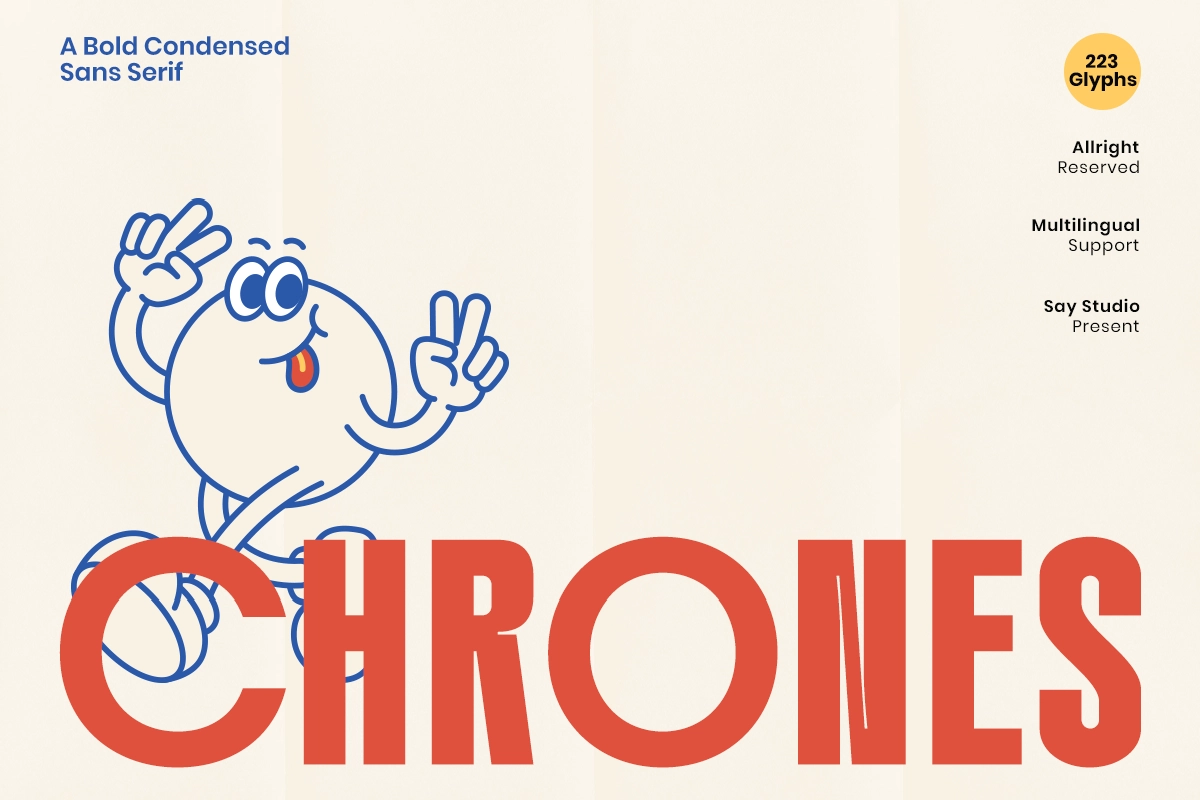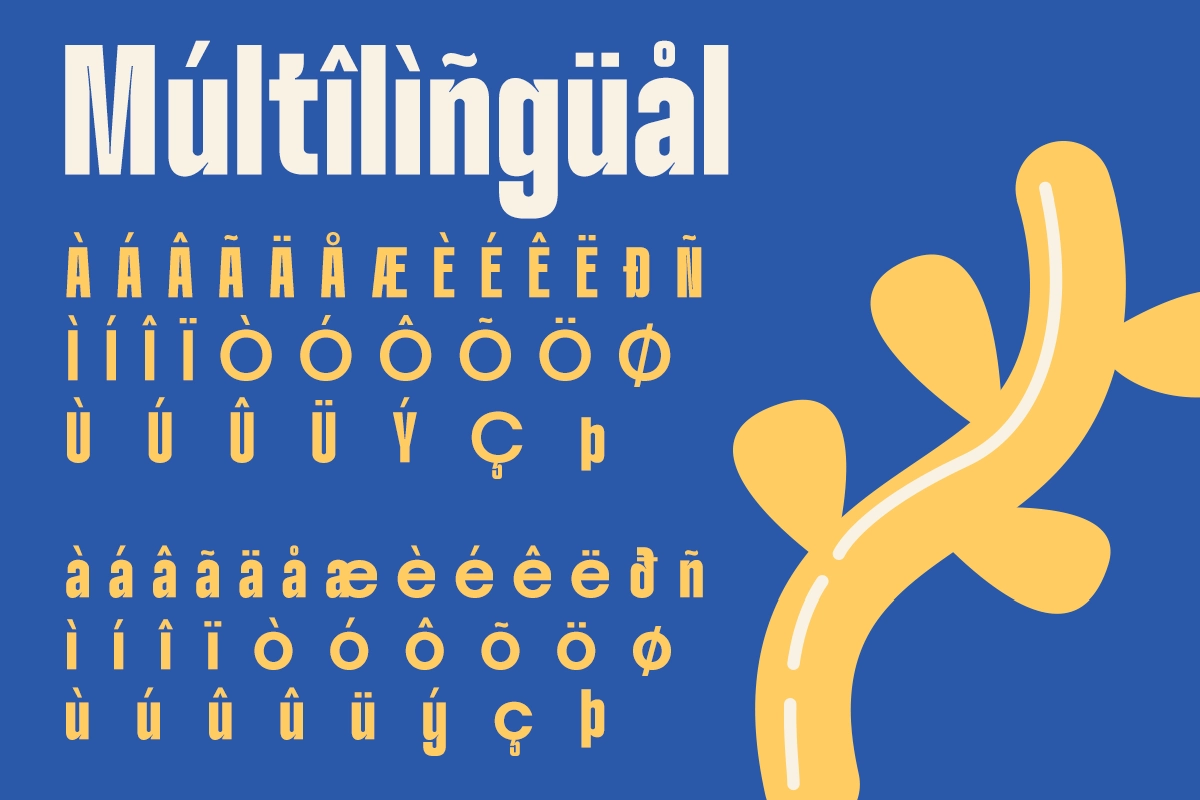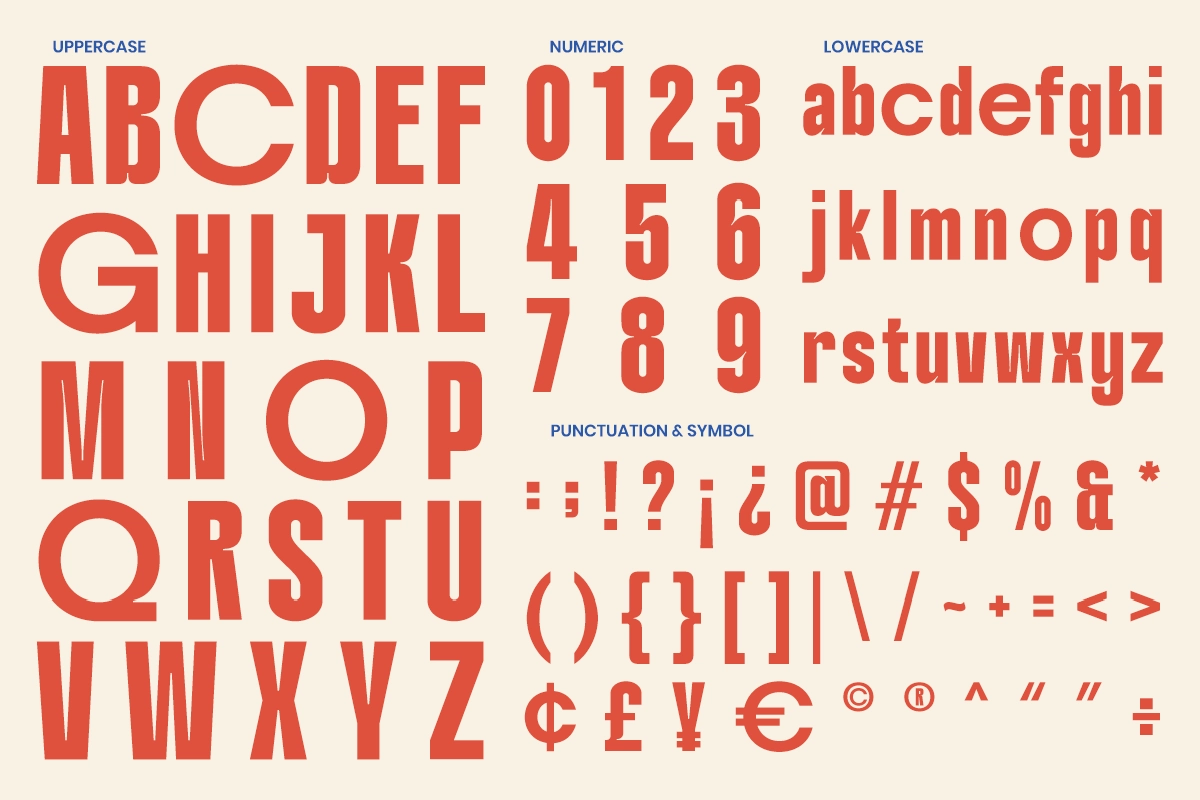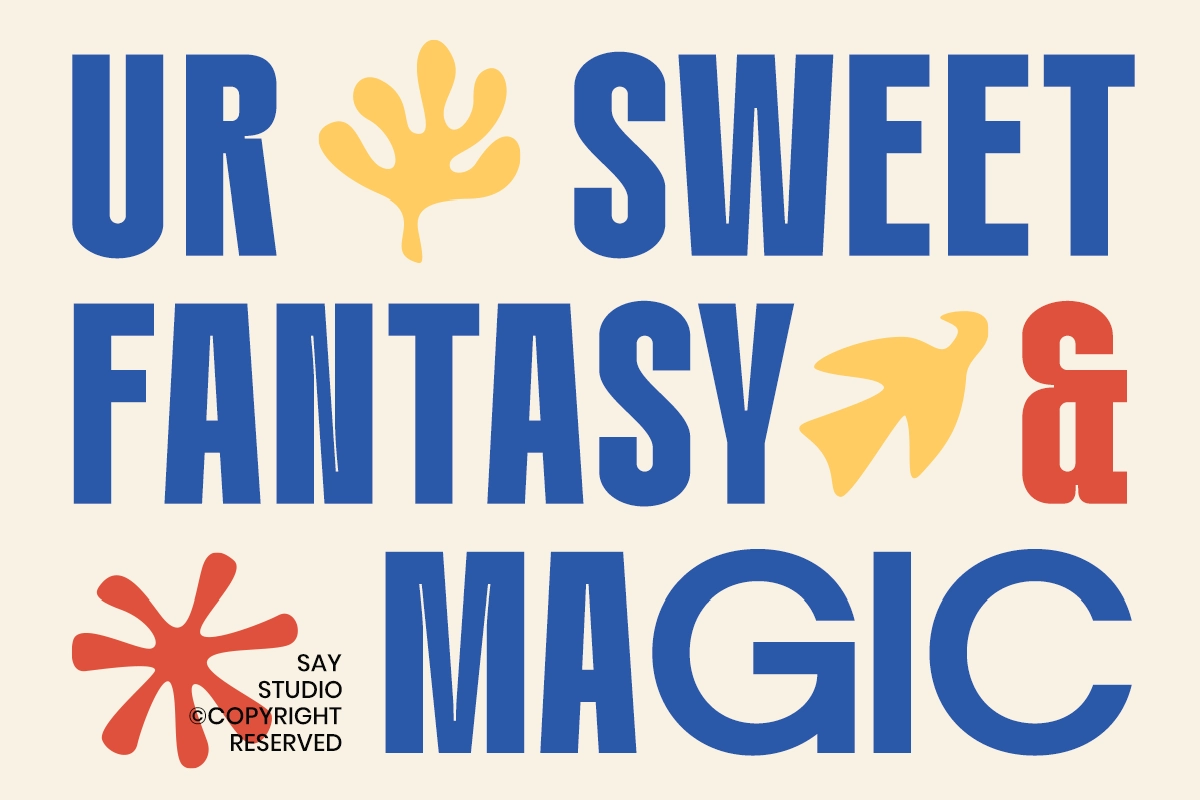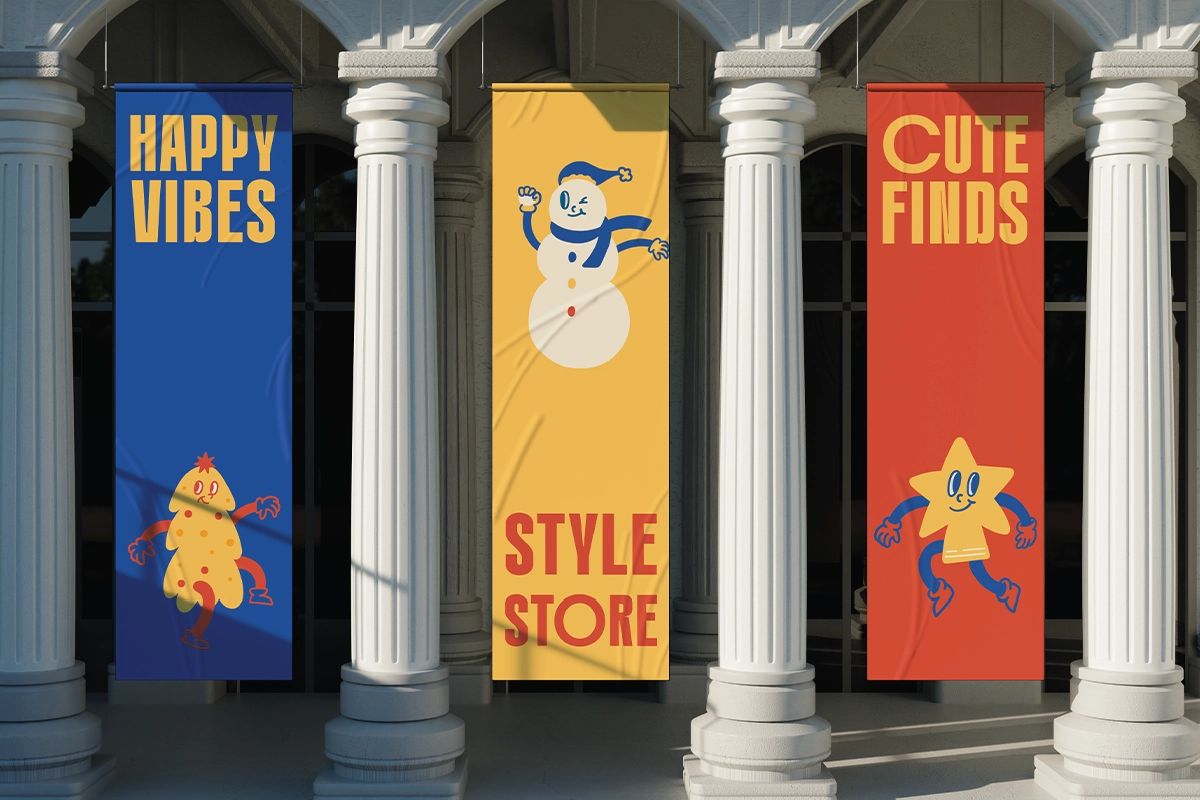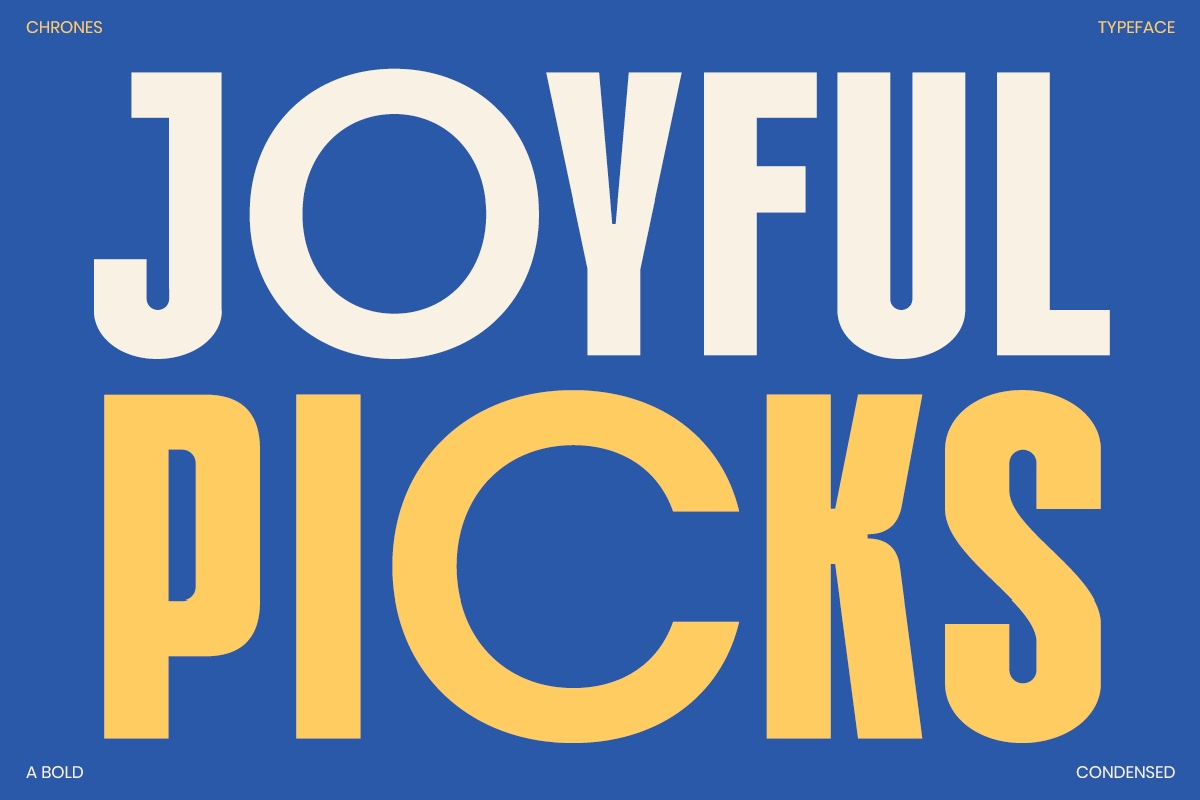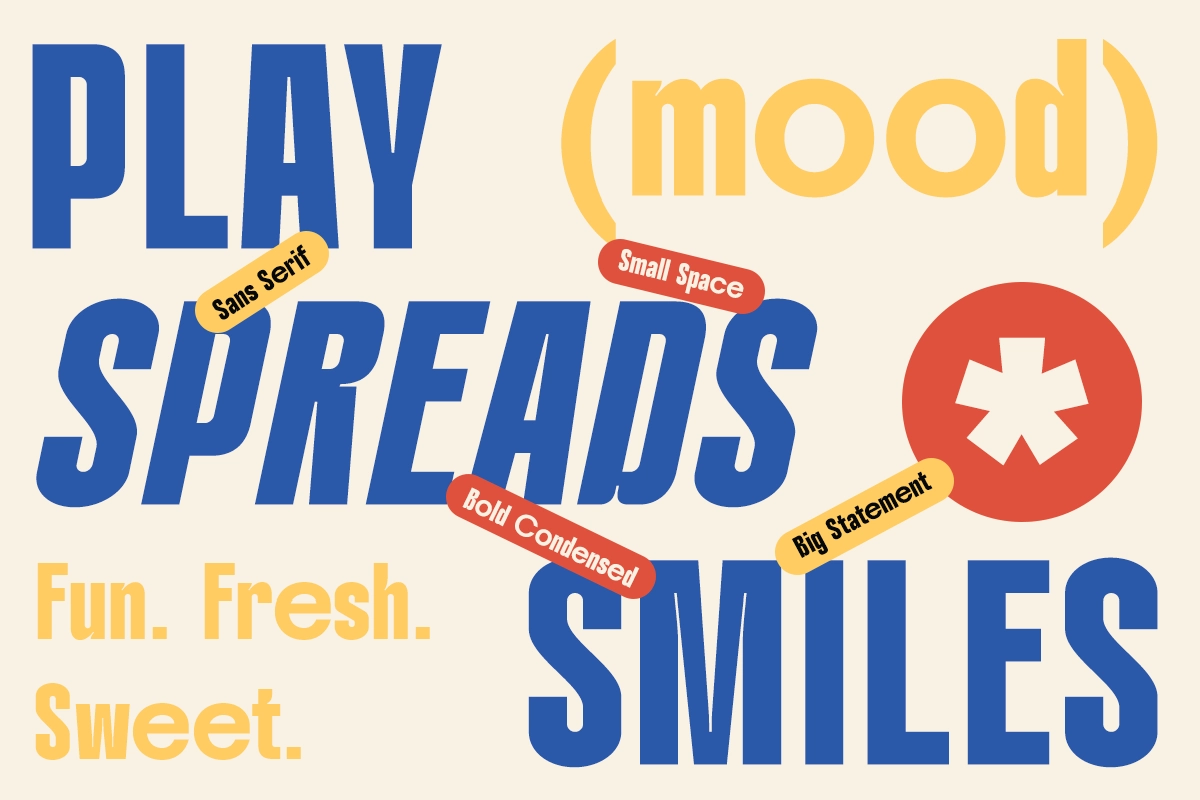
Chrones - Bold Condensed Sans Font
This bold sans serif typeface is tall, compact, and loud in the best possible way. Its condensed build saves space while the heavy weight, playful inktrap cuts, and clean character set keep every headline sharp, punchy, and easy to read.
Chrones is a strong choice for sports branding, poster titles, merchandise graphics, packaging, logo design, streetwear labels, fitness campaigns, social media posts, music artwork, event promos, editorial headlines, app banners, and more. It is made for layouts that need big type, tight spacing, and zero mumbling.
- Styles Included: Regular and Italic
- Inktrap style
- 223 glyphs